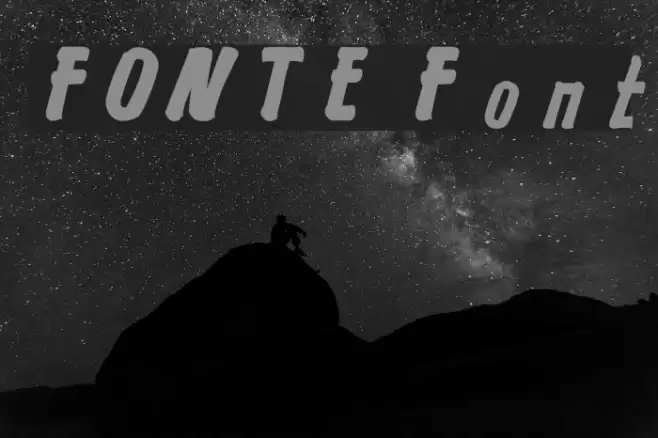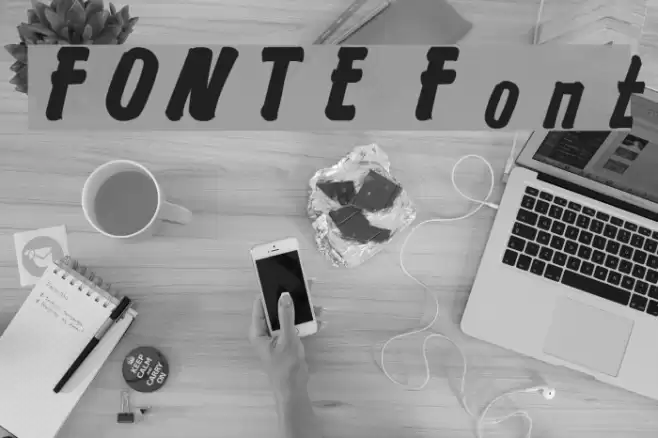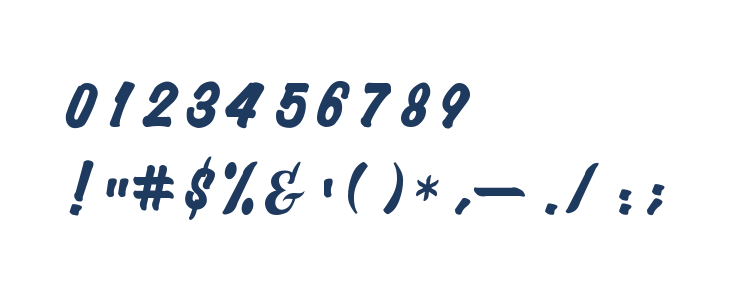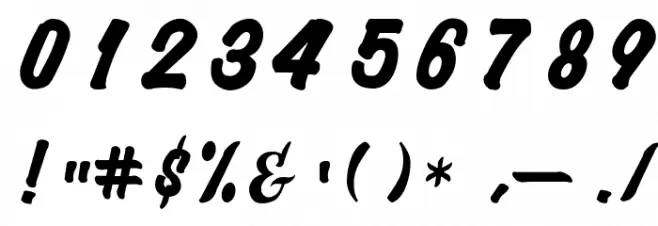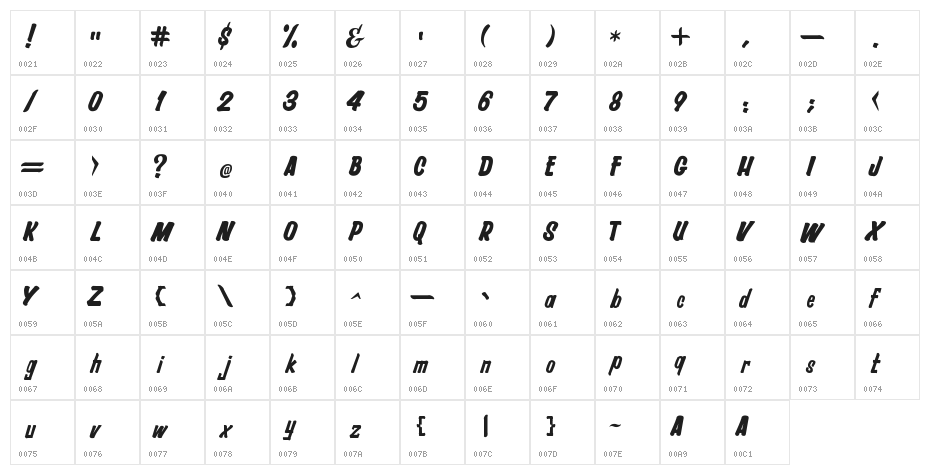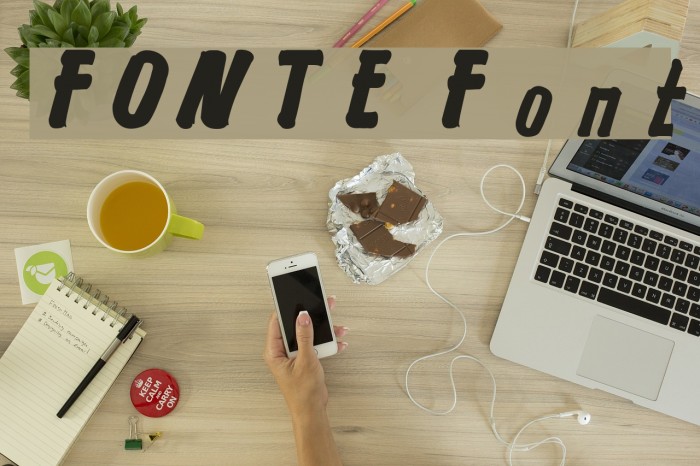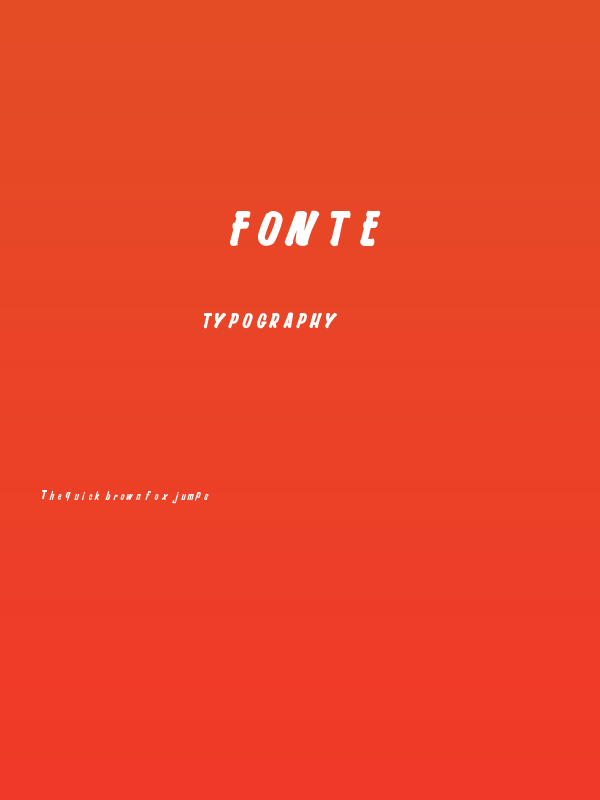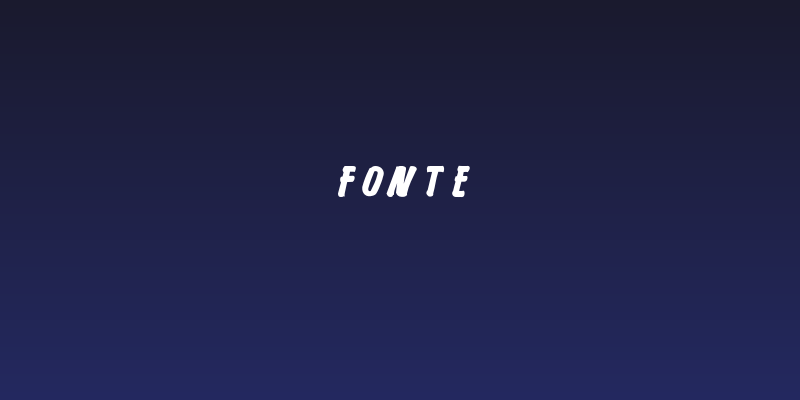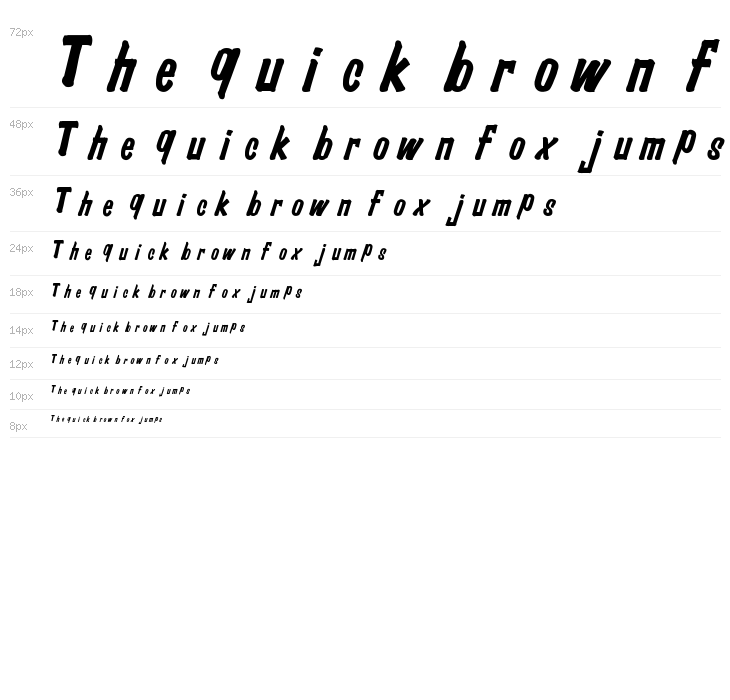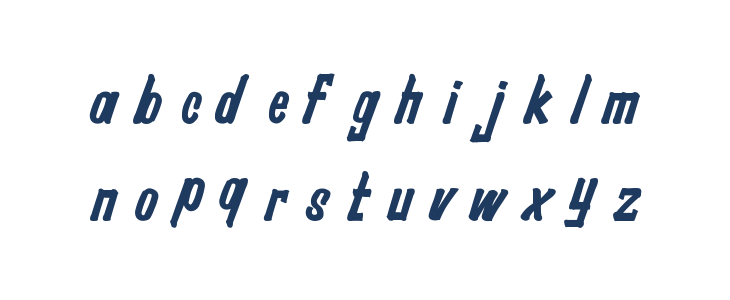
FONTE Font
FONTE Description
This font features a bold, italicized style with a strong presence. The characters are slightly slanted, giving a dynamic and energetic feel. The strokes are thick and consistent, providing a uniform appearance across all letters and numbers. The uppercase and lowercase letters maintain a cohesive look, with the lowercase letters slightly smaller but equally bold. The numbers are clear and easy to read, matching the style of the alphabet. Special characters are included, maintaining the same bold and italicized characteristics. This font is ideal for making a statement and drawing attention.
Bold, italicized font with a dynamic and energetic style from Uncategorized fonts.